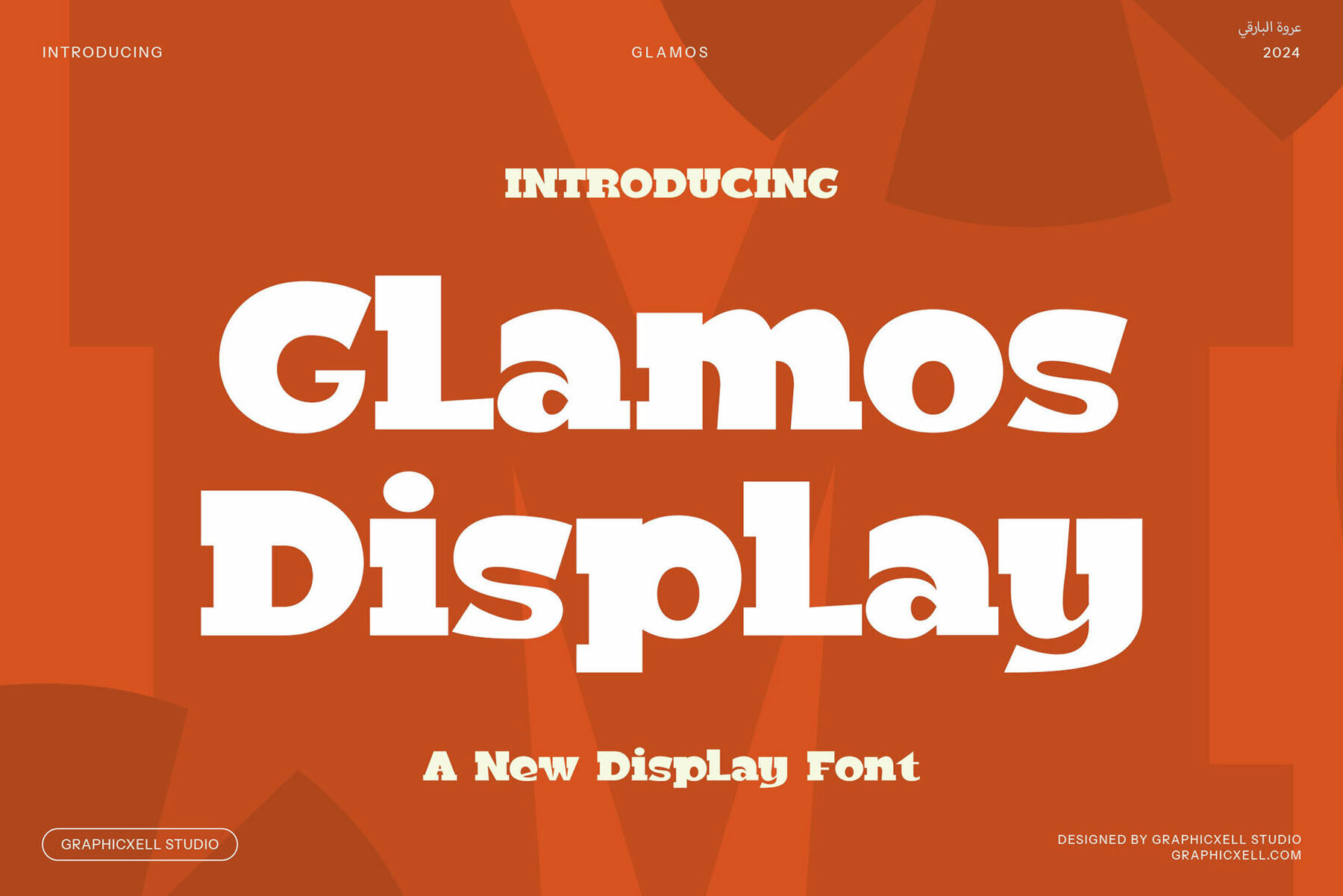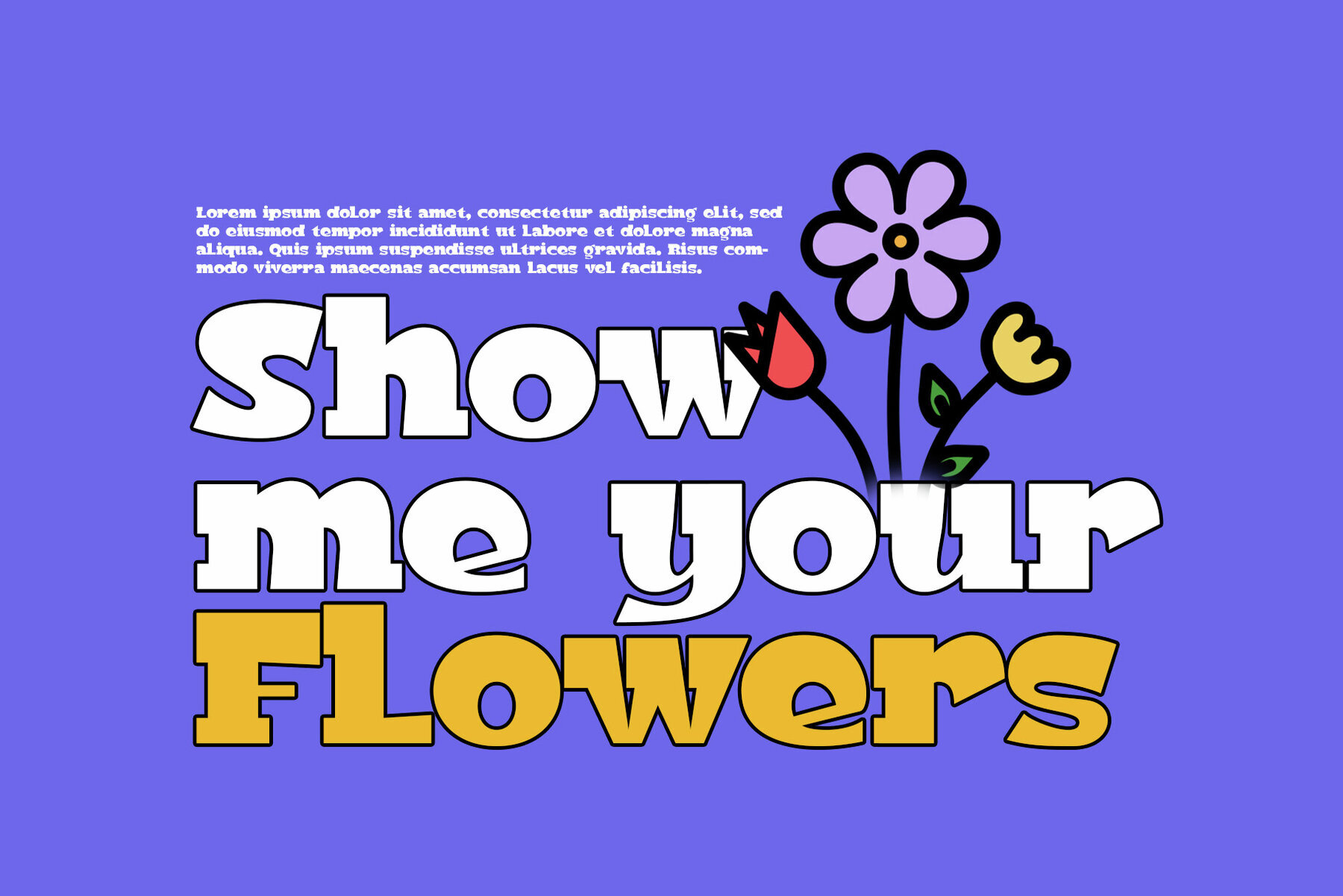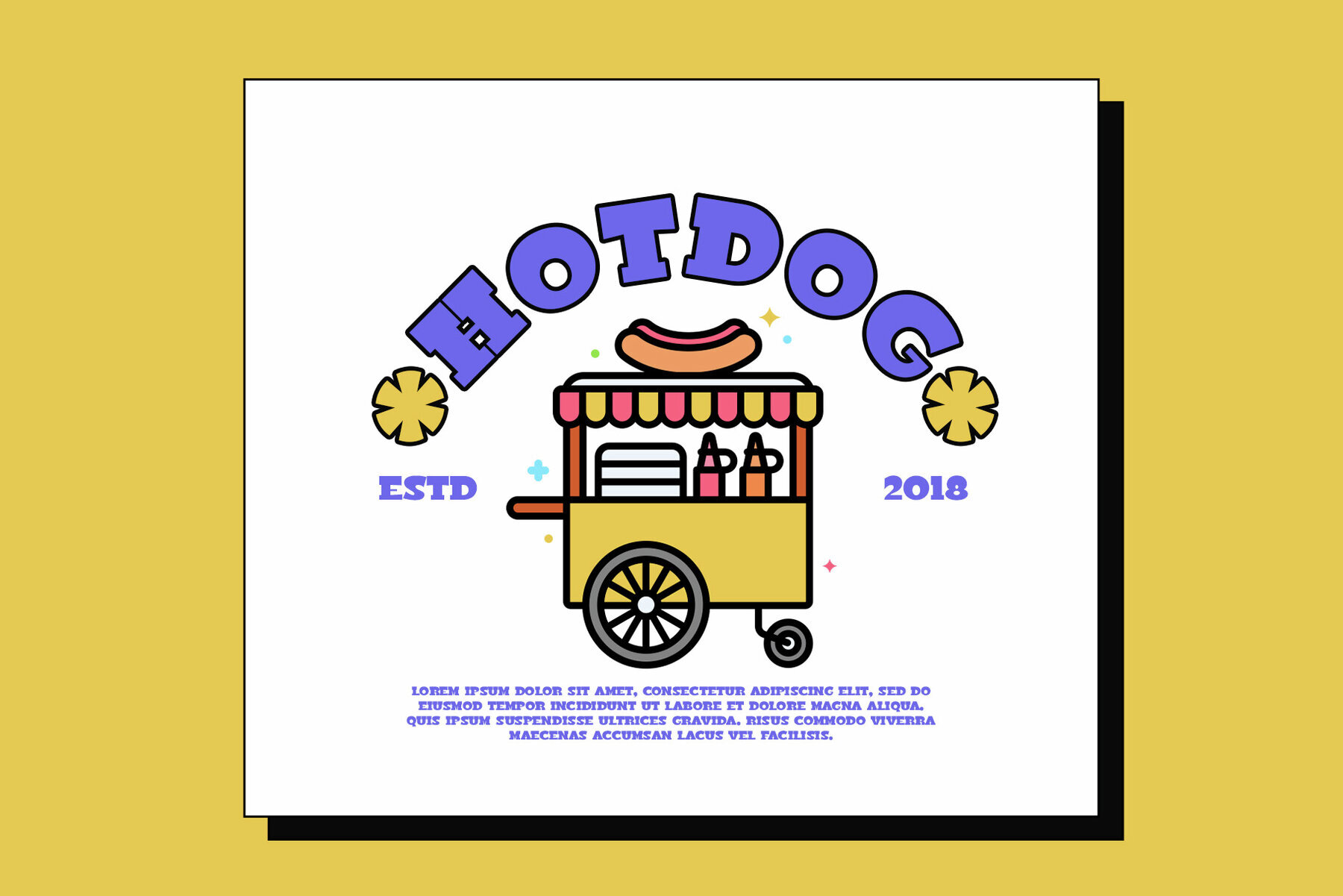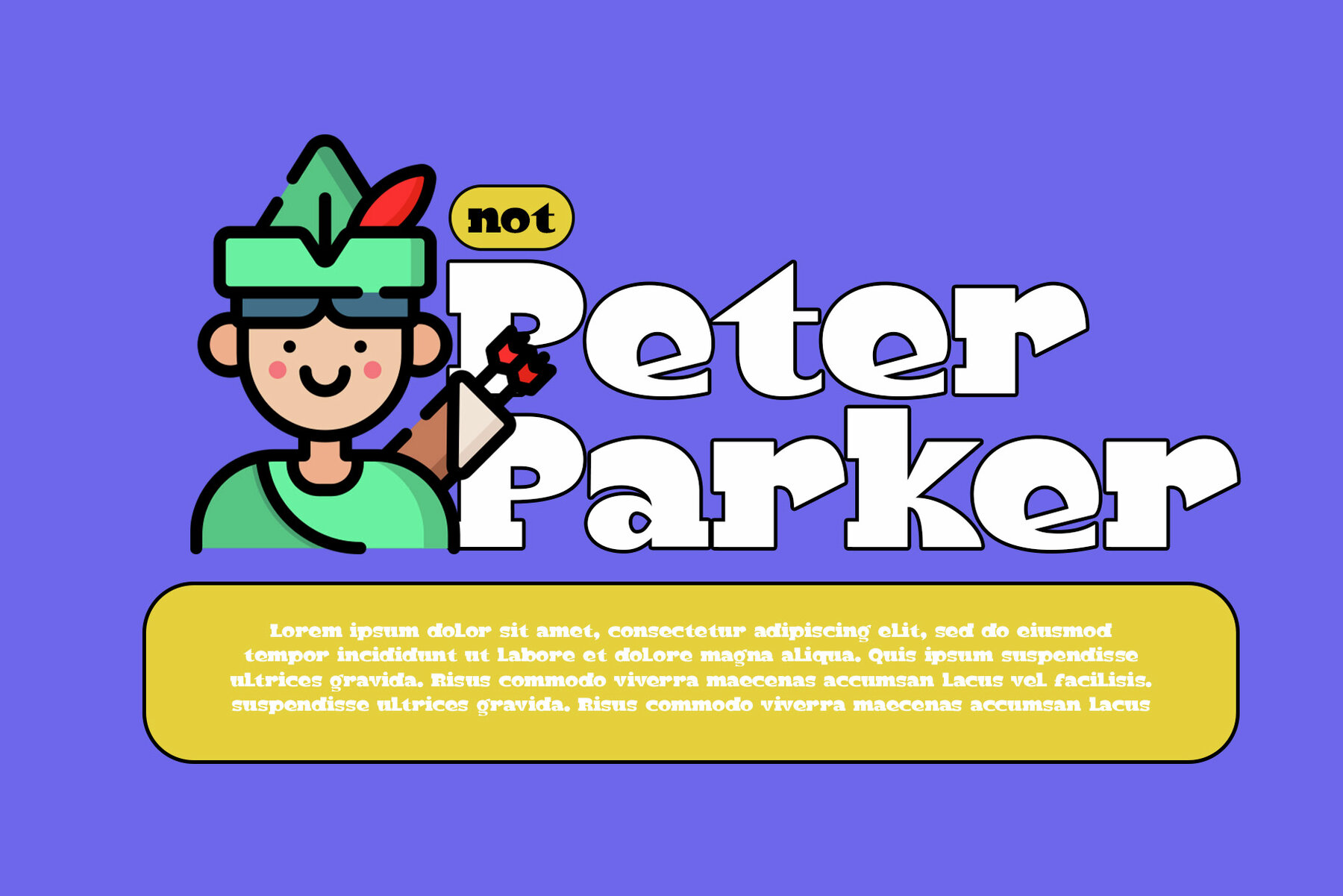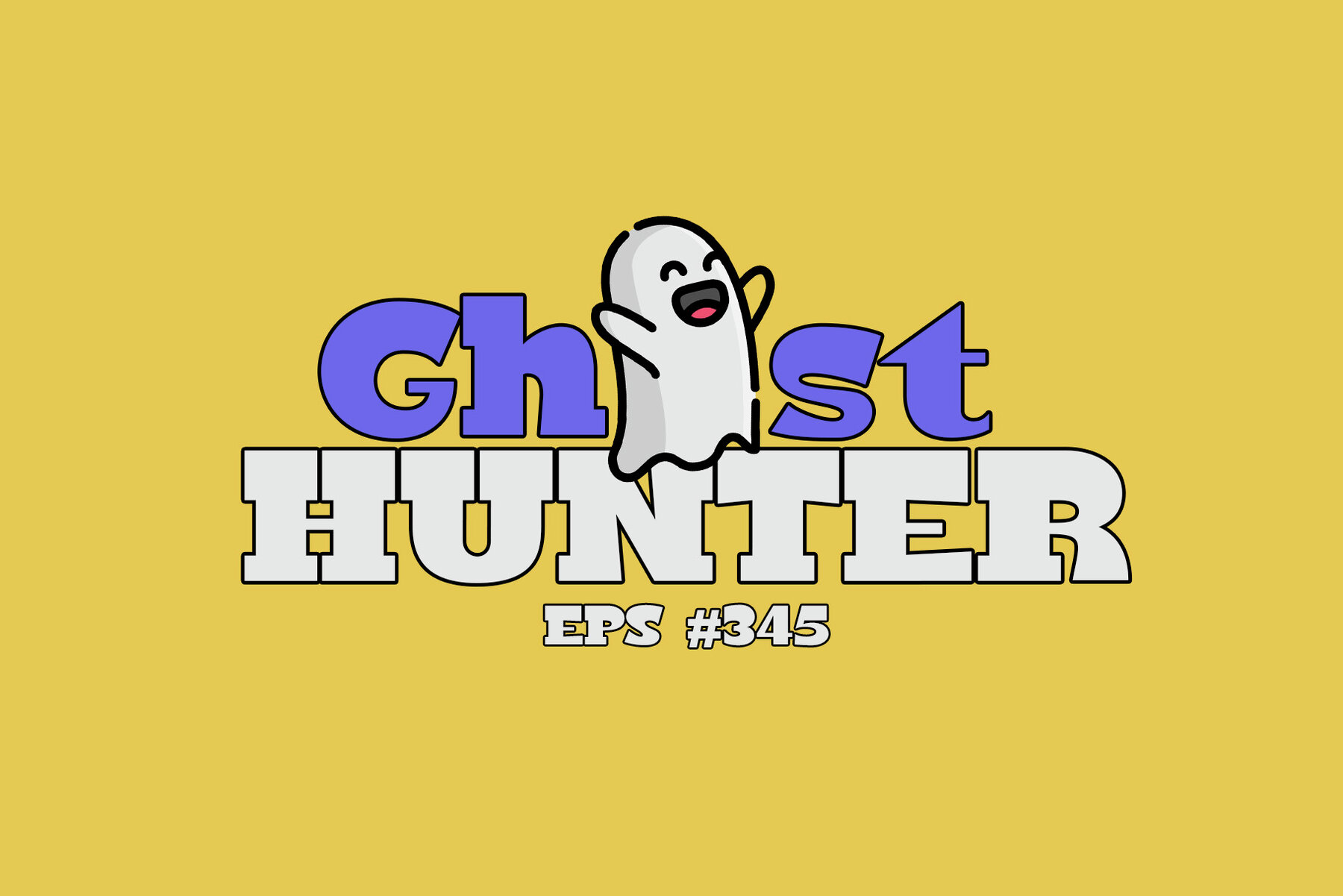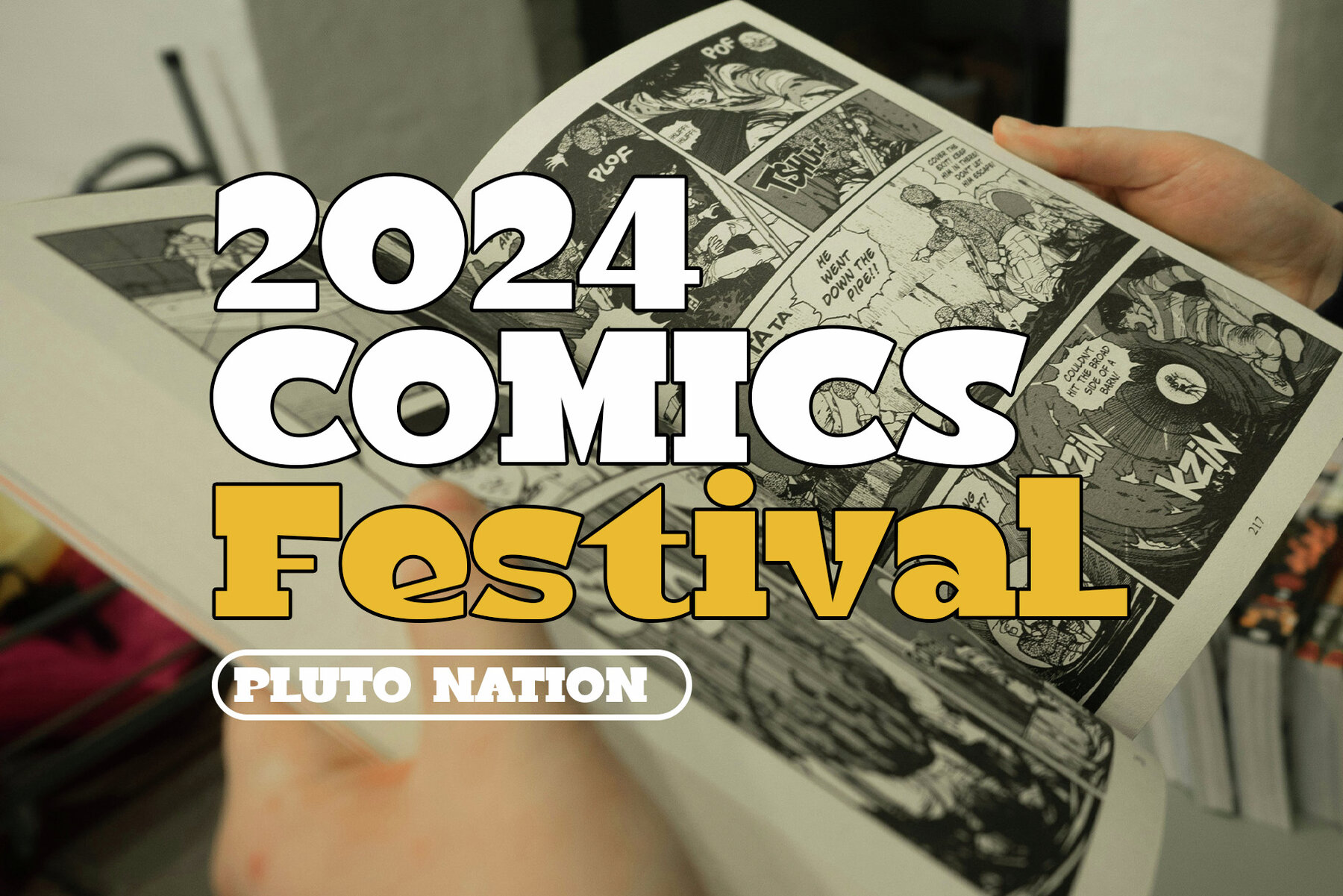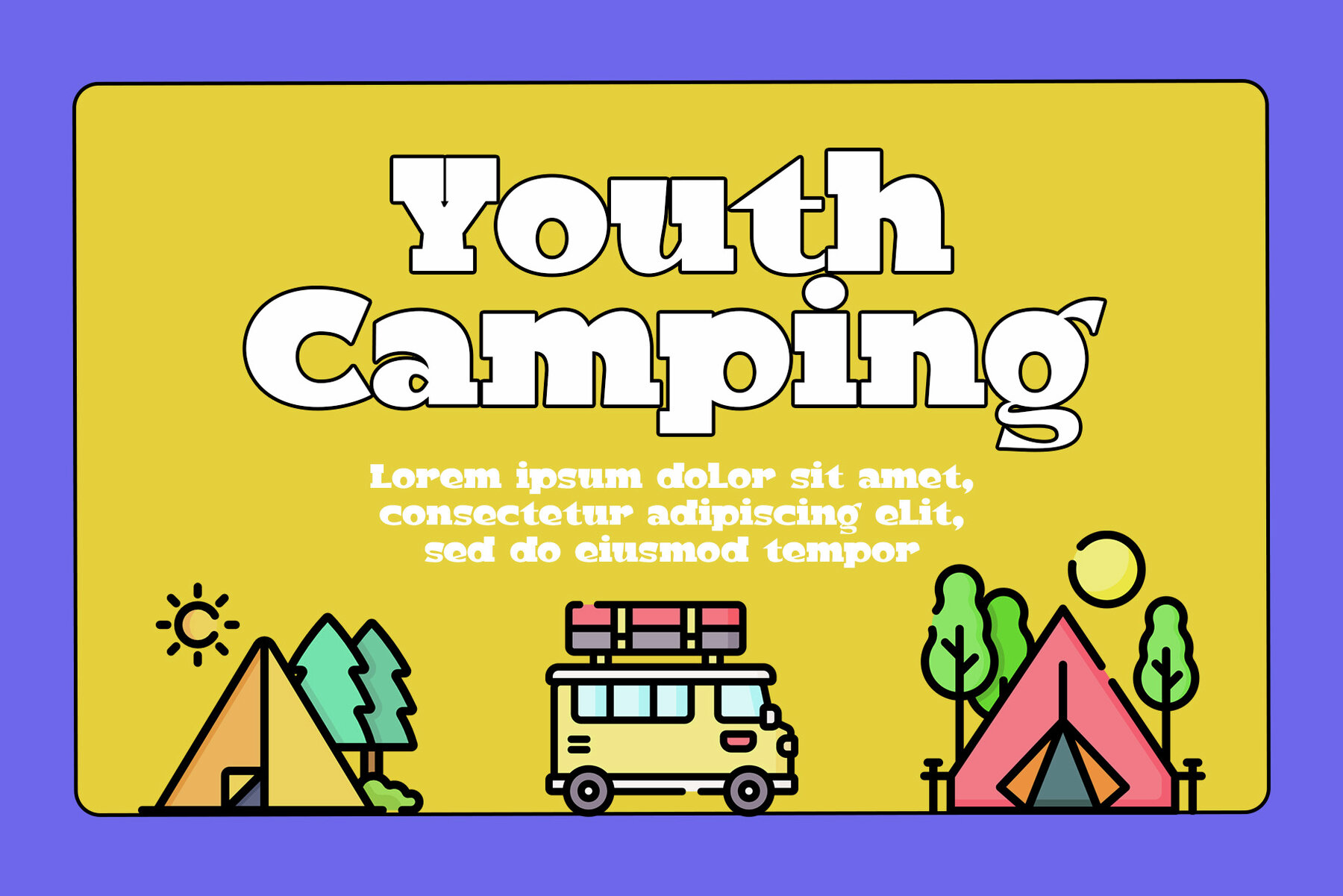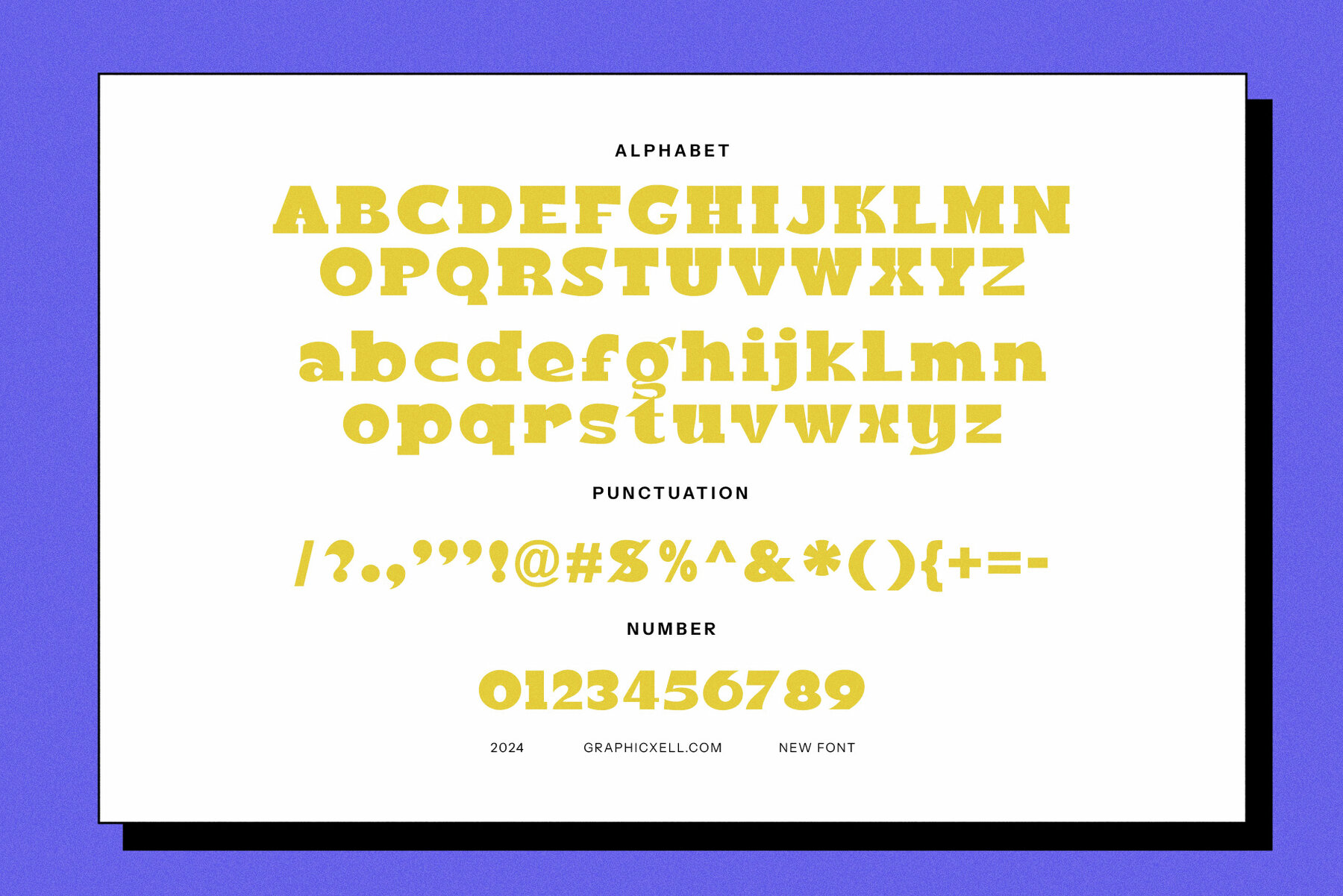
Glamos Font
Glamos
Glamos is a dynamic display font that fuses retro charm with a modern twist, making it a standout option for projects needing attention and personality. This font's rounded shapes and bold, clean lines evoke nostalgia while keeping designs vibrant and fresh. Its unique sans-serif style is perfect for logos, branding, and eye-catching advertisements, ensuring your creations stand apart with a distinctive, retro-inspired flair.
Glamos' versatile design suits a wide range of creative applications. From magazine spreads to website headers, it adds a lively touch to editorial layouts, ensuring content stands out with style. In branding, this font is an exceptional choice for memorable logos in the food and lifestyle sectors, where grabbing attention is crucial. Whether crafting promotional materials, designing for social media, or developing product packaging, Glamos enhances brand memorability and approachability.
With its harmonious blend of retro aesthetics and contemporary design, Glamos is ideal for those aiming to make a bold statement in branding, advertising, and product design. Infuse your projects with fun and vintage appeal using Glamos, the perfect choice for designers seeking to capture attention and inject personality into their work.